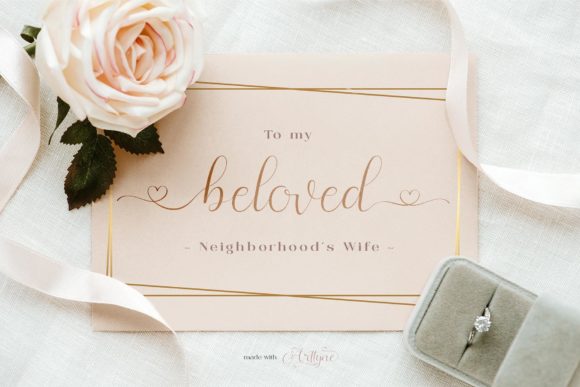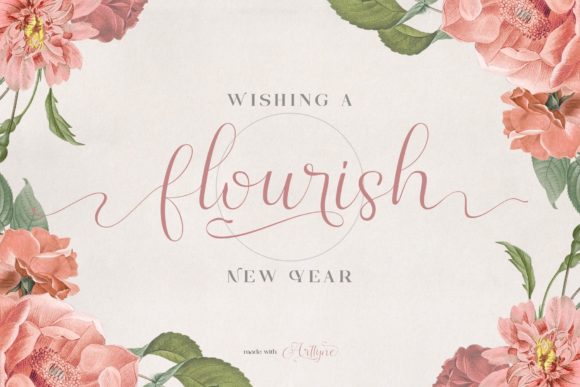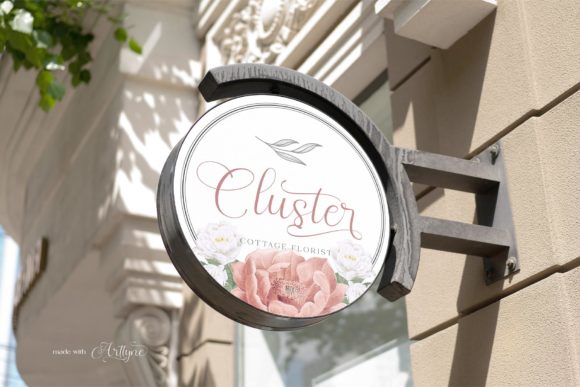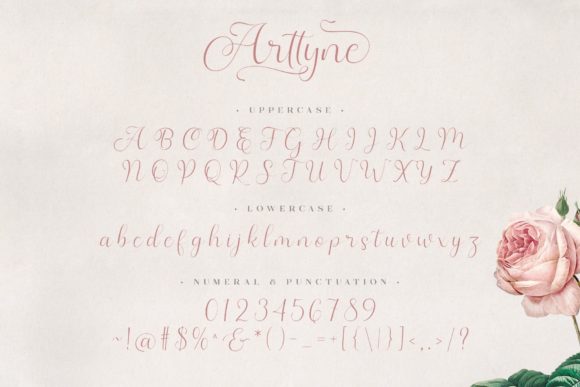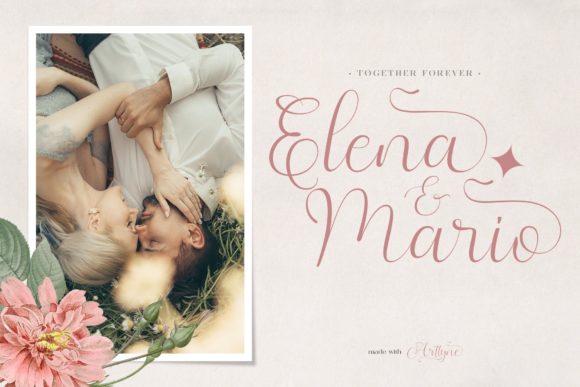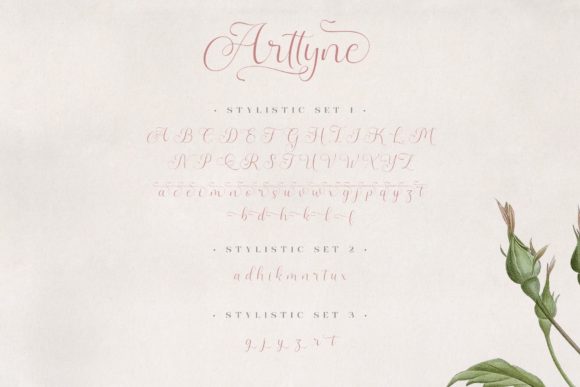
First Impressions: A Love Letter to Arttyne
Arttyne is a stunning script font that exudes elegance and sophistication. Its flowing lines and intricate details make it perfect for a variety of design projects, including wedding invitations, thank you cards, quotes, greeting cards, logos, business cards, and more.
What I Love About Arttyne ✨
- 💕 Beautiful and flowing script style
- 🎨 Highly customizable for a unique touch
- 👍 Perfect for wedding invitations, greeting cards, and more
- ⚠️ May require some learning curve for OpenType features and glyphs
- 🤯 Limited availability of certain characters or ligatures
The Story Behind Arttyne: Designer Inspiration
Arttyne was designed with love and care by a talented type designer who’s passionate about creating beautiful, unique fonts. The designer’s inspiration came from classic script fonts, with a modern twist to make it fresh and exciting. The result is a font that’s both elegant and highly customizable.
Q: What is PUA encoding, and how does it benefit Arttyne?
PUA (Private Use Area) encoding allows font designers to include additional characters, glyphs, and swashes that aren’t part of the standard Unicode character set. This means that Arttyne includes a wide range of alternative characters and ornaments that make it highly customizable.
Q: Is Arttyne suitable for body text?
While Arttyne is a beautiful font, it’s primarily designed for display purposes, such as headings, titles, and short paragraphs. For body text, you may want to choose a font with better legibility and readability.